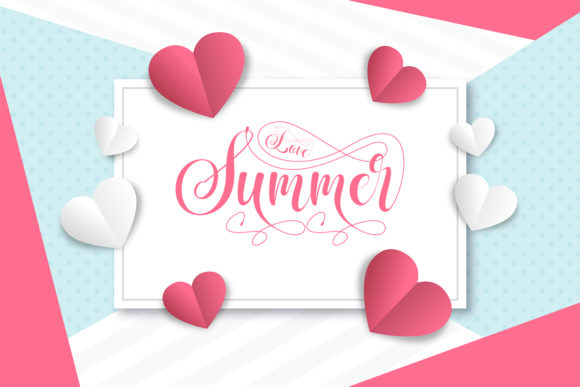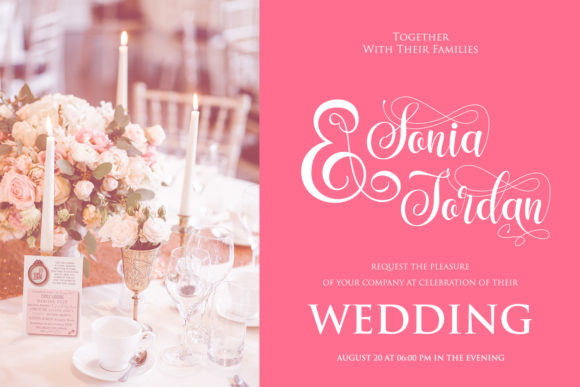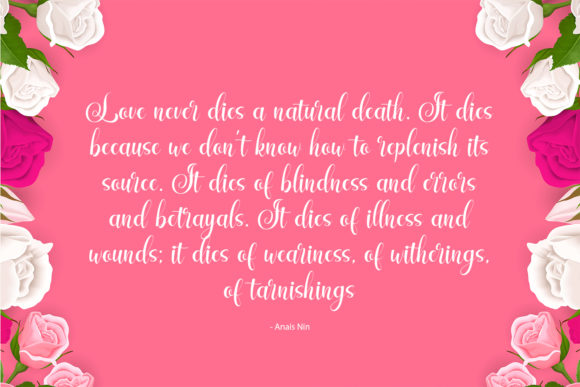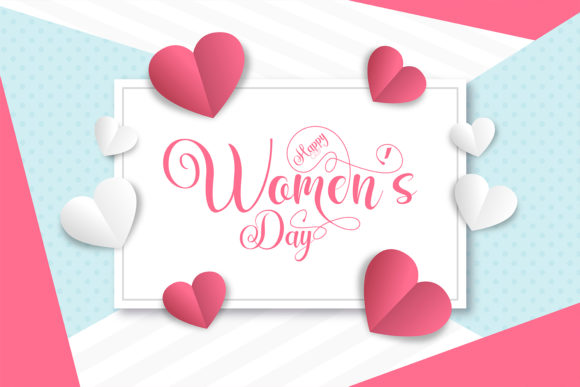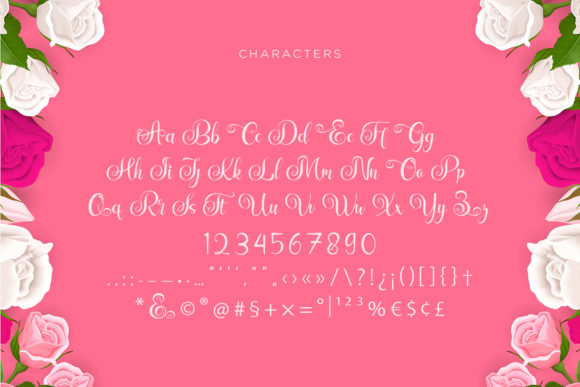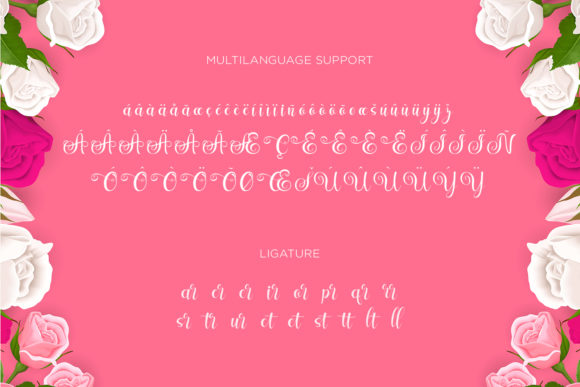
Introducing Enjelina Font: The Sweetest Script Font for Love-Themed Crafts
Are you a designer or crafter looking for the perfect font to add a romantic touch to your projects? Look no further than Enjelina Font! This sweet script font is specifically designed for love-themed crafts, making it an ideal choice for anyone who wants to create beautiful and sentimental designs.
What is Enjelina Font?
Enjelina Font is a beautiful script font that exudes romance and elegance. Its flowing curves and delicate lines make it perfect for creating stunning designs that capture the essence of love. Whether you’re working on a wedding invitation, a Valentine’s Day card, or a romantic poster, Enjelina Font is sure to add a touch of sweetness and sophistication.
Key Features of Enjelina Font
- Sweet and Romantic Design: Enjelina Font is designed to be sweet and romantic, making it perfect for love-themed crafts.
- Elegant Script Style: The font features elegant script letters that flow smoothly, creating a beautiful and cohesive look.
- Easy to Read: Despite its ornate design, Enjelina Font is easy to read, making it perfect for use in a variety of design projects.
- High-Quality Design: The font is designed with high-quality graphics, ensuring that it looks stunning in any design.
Uses for Enjelina Font
Enjelina Font is versatile and can be used in a variety of design projects, including:
- Wedding Invitations: Add a touch of romance and elegance to your wedding invitations with Enjelina Font.
- Valentine’s Day Cards: Create beautiful and sentimental Valentine’s Day cards with Enjelina Font.
- Romantic Posters: Use Enjelina Font to create stunning romantic posters that capture the essence of love.
- Crafting Projects: Enjelina Font is perfect for use in a variety of crafting projects, including scrapbooking, card making, and more.
Why Choose Enjelina Font?
There are many script fonts available, but Enjelina Font stands out for several reasons:
- Unique Design: Enjelina Font has a unique and distinctive design that sets it apart from other script fonts.
- High-Quality Graphics: Enjelina Font features high-quality graphics that ensure it looks stunning in any design.
Tips for Using Enjelina Font
Here are a few tips for using Enjelina Font in your design projects:
- Pair with Other Fonts: Enjelina Font pairs well with other fonts, so feel free to experiment with different combinations.
- Use in Combination with Images: Enjelina Font looks stunning when used in combination with romantic images, such as flowers, hearts, and more.
- Experiment with Colors: Try out different colors to see what works best with Enjelina Font. Pastel colors, red, and pink are popular choices for love-themed designs.
Enjelina Font is a beautiful script font that’s perfect for adding a romantic touch to any design project. Its sweet and elegant design makes it ideal for love-themed crafts, and its ease of use and high-quality graphics make it a great choice for designers and crafters. Whether you’re working on a wedding invitation, a Valentine’s Day card, or a romantic poster, Enjelina Font is sure to make your project stand out.